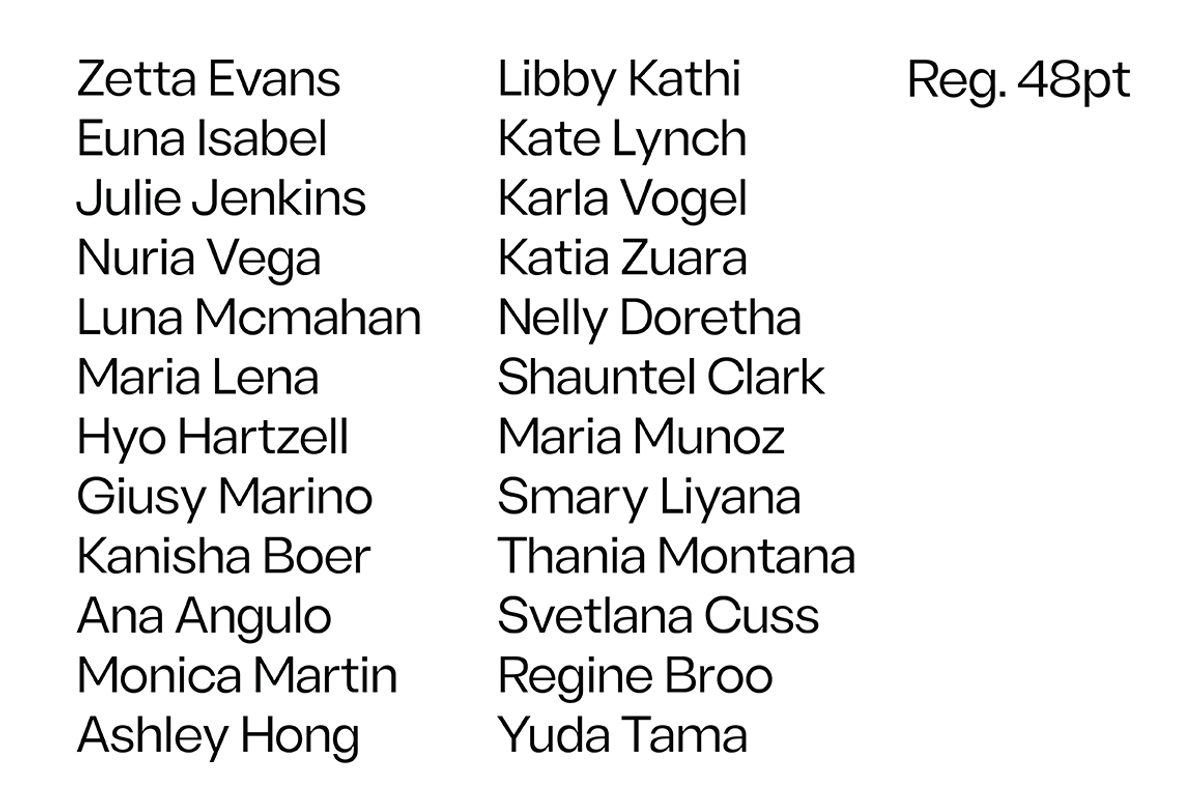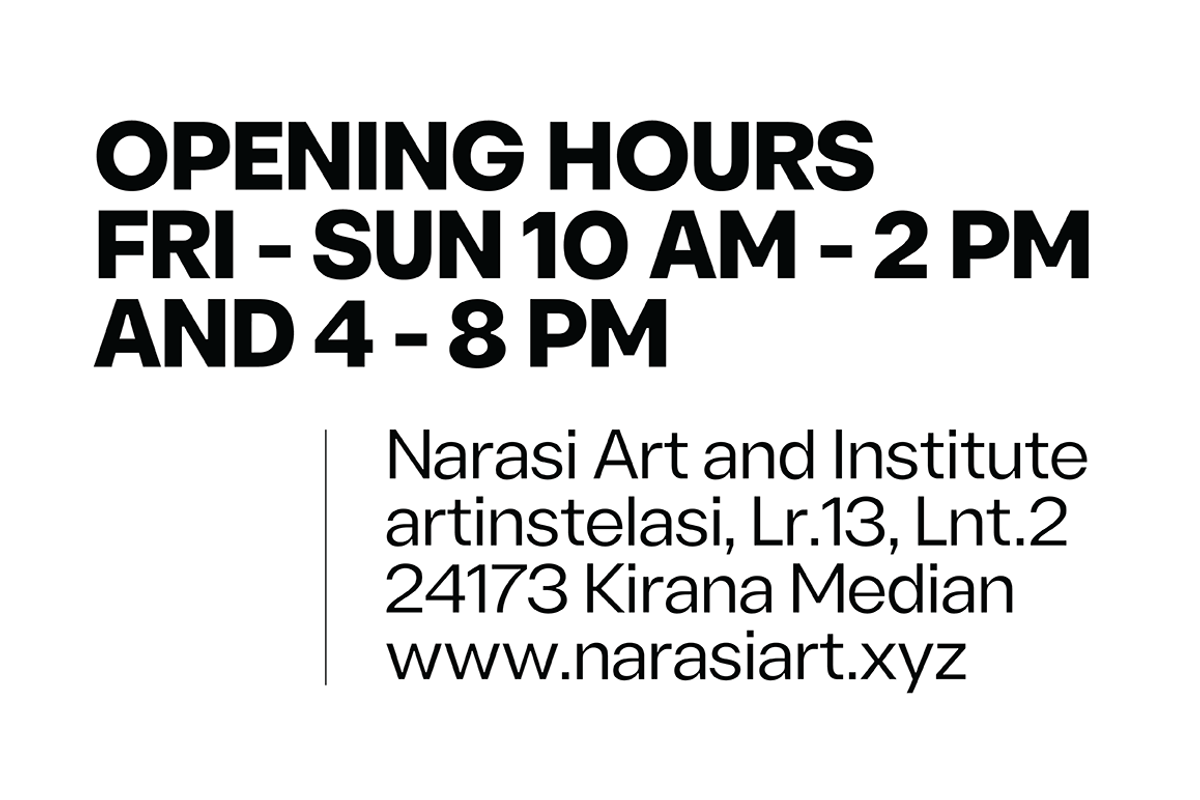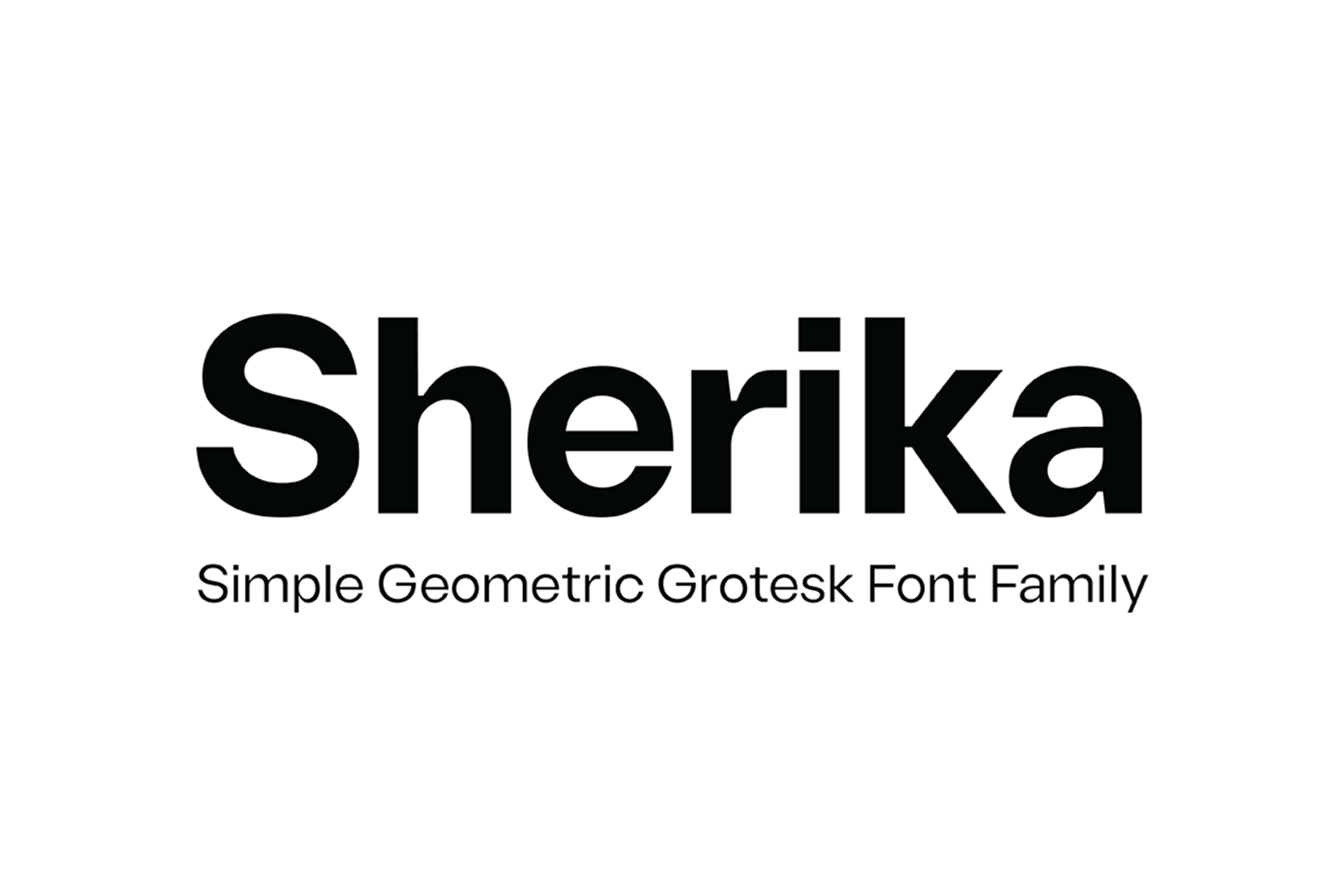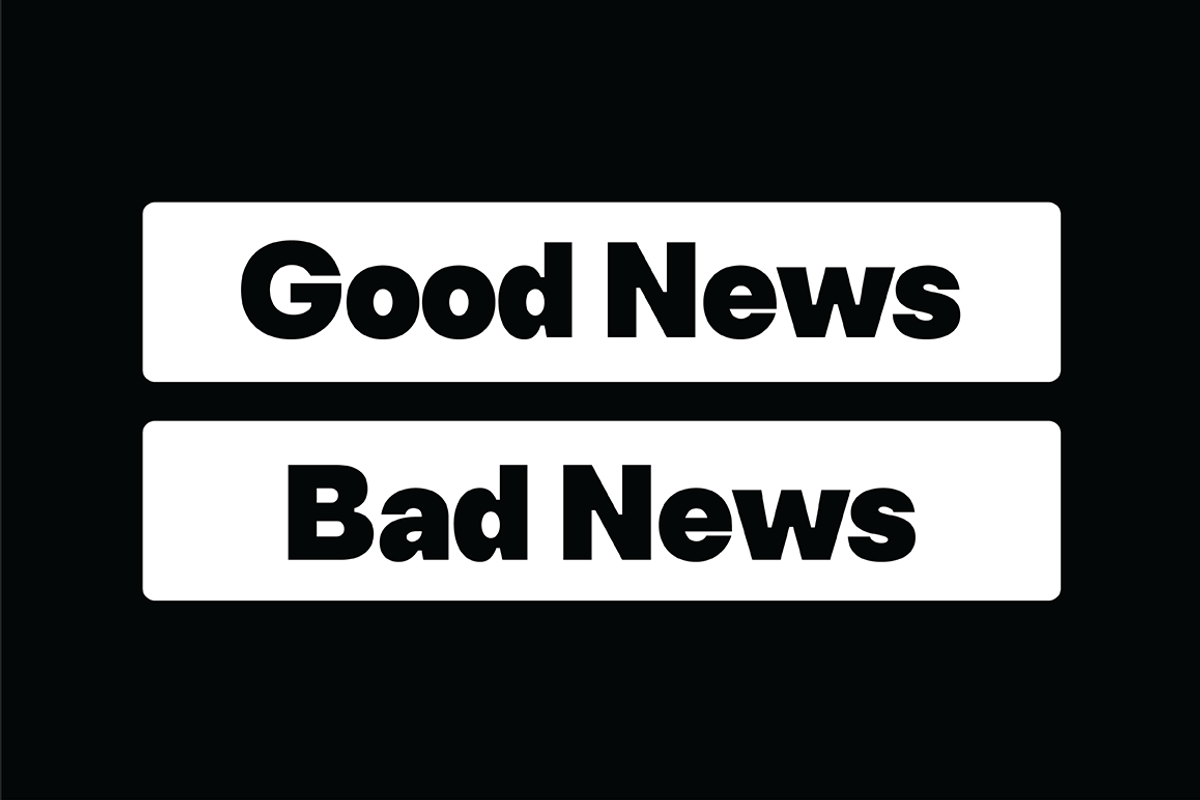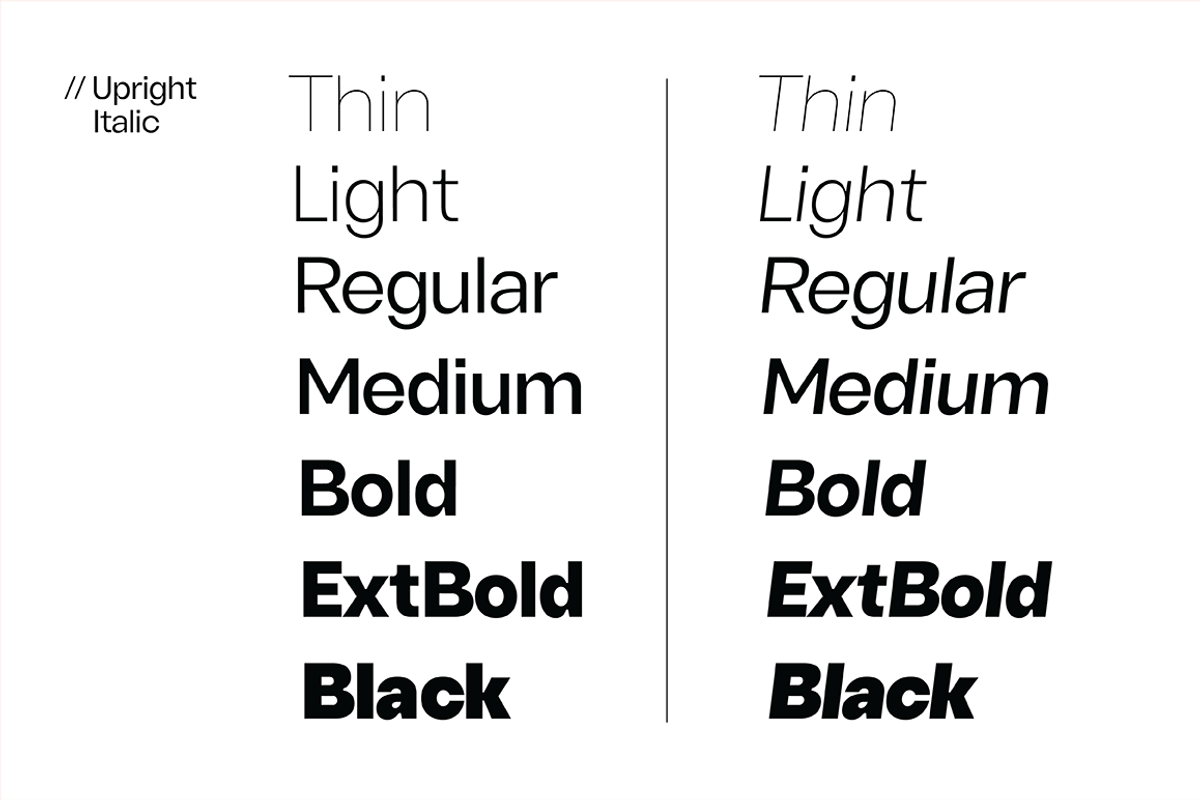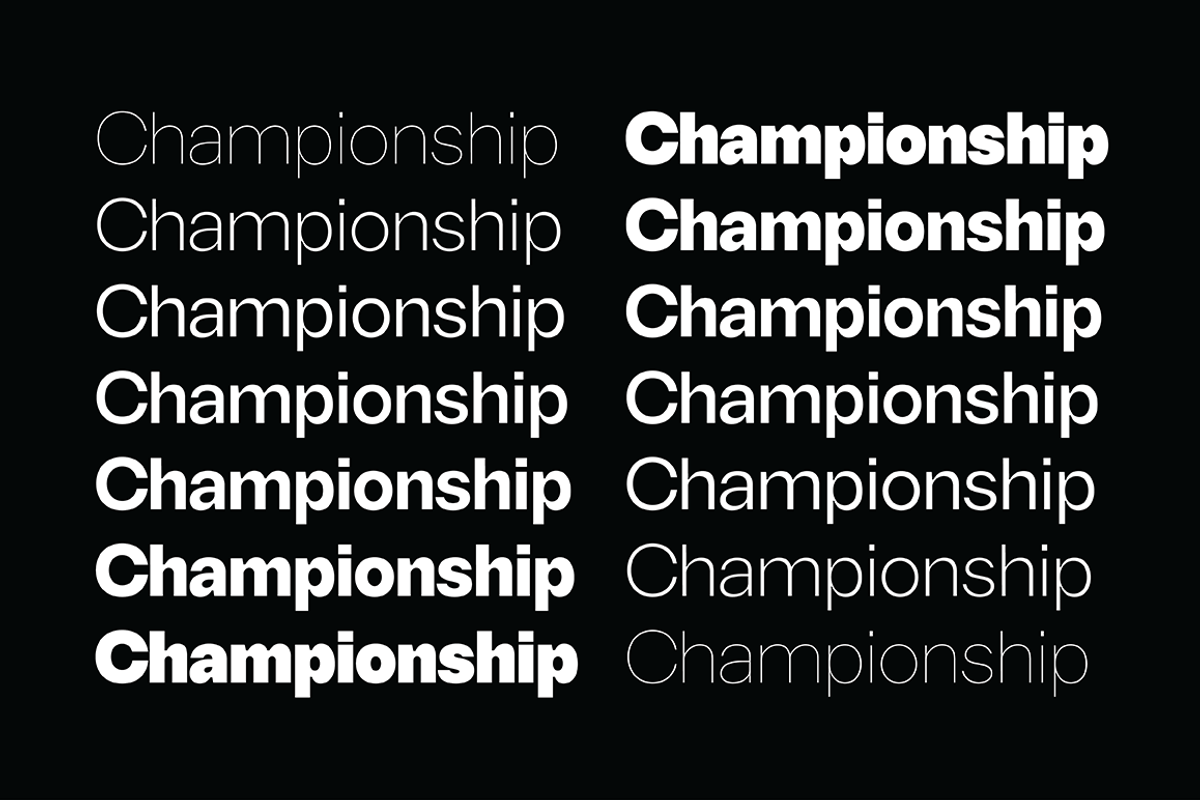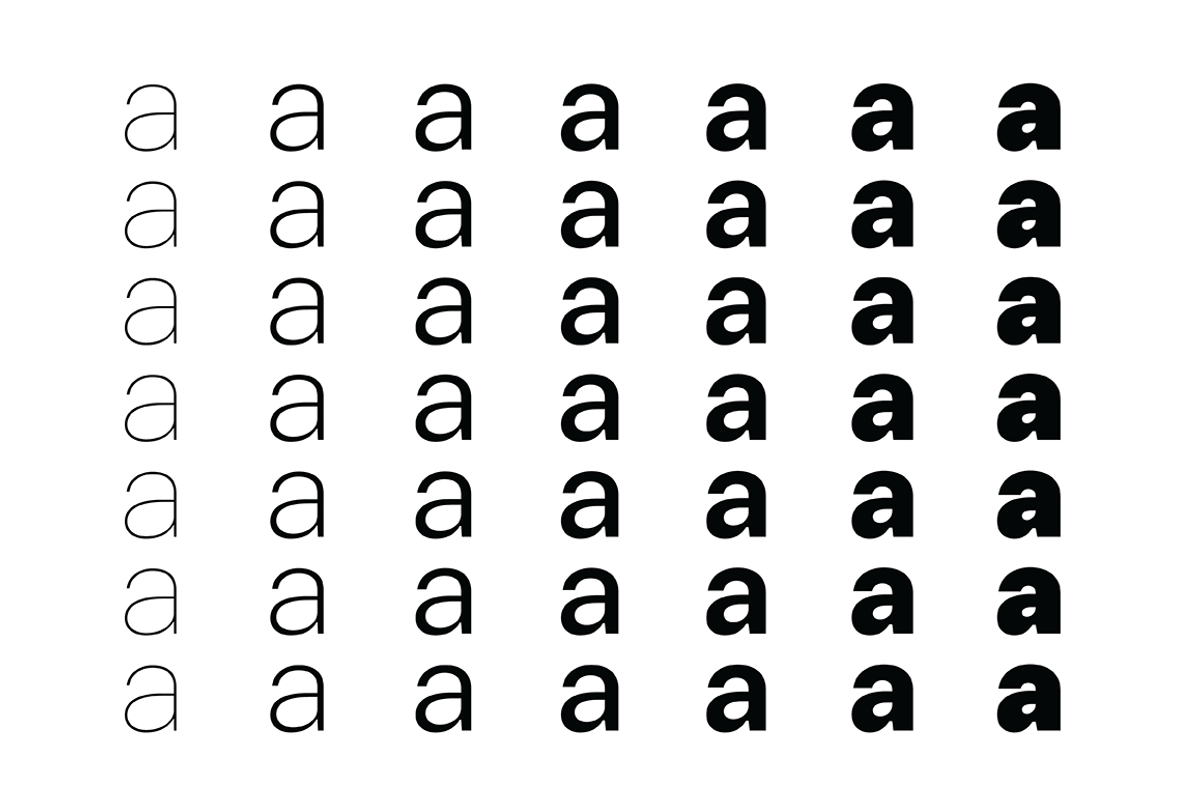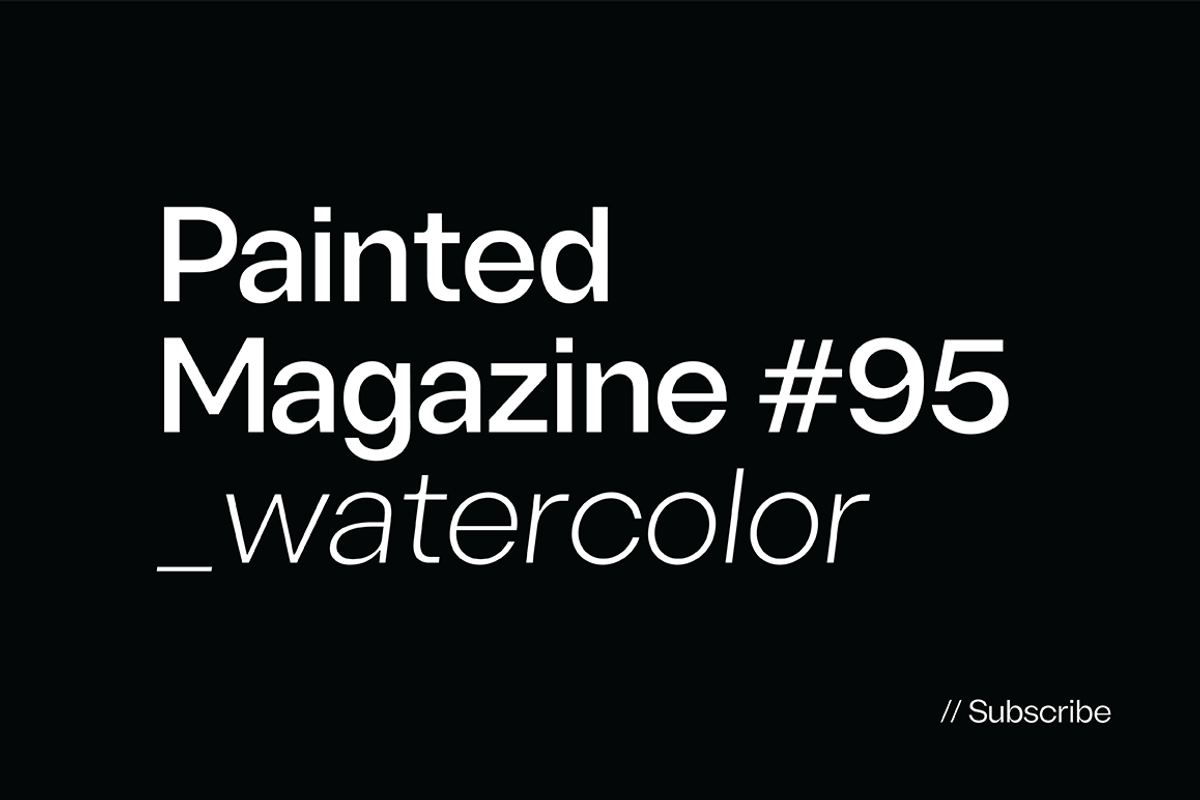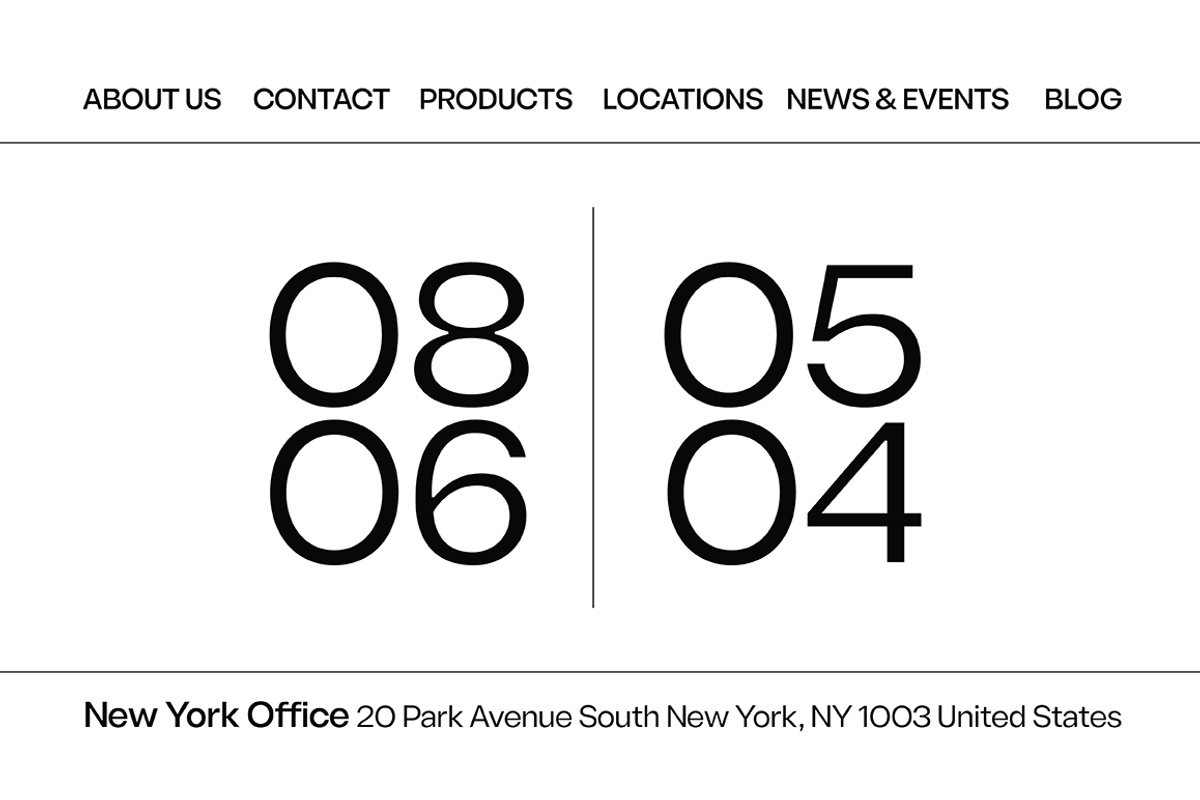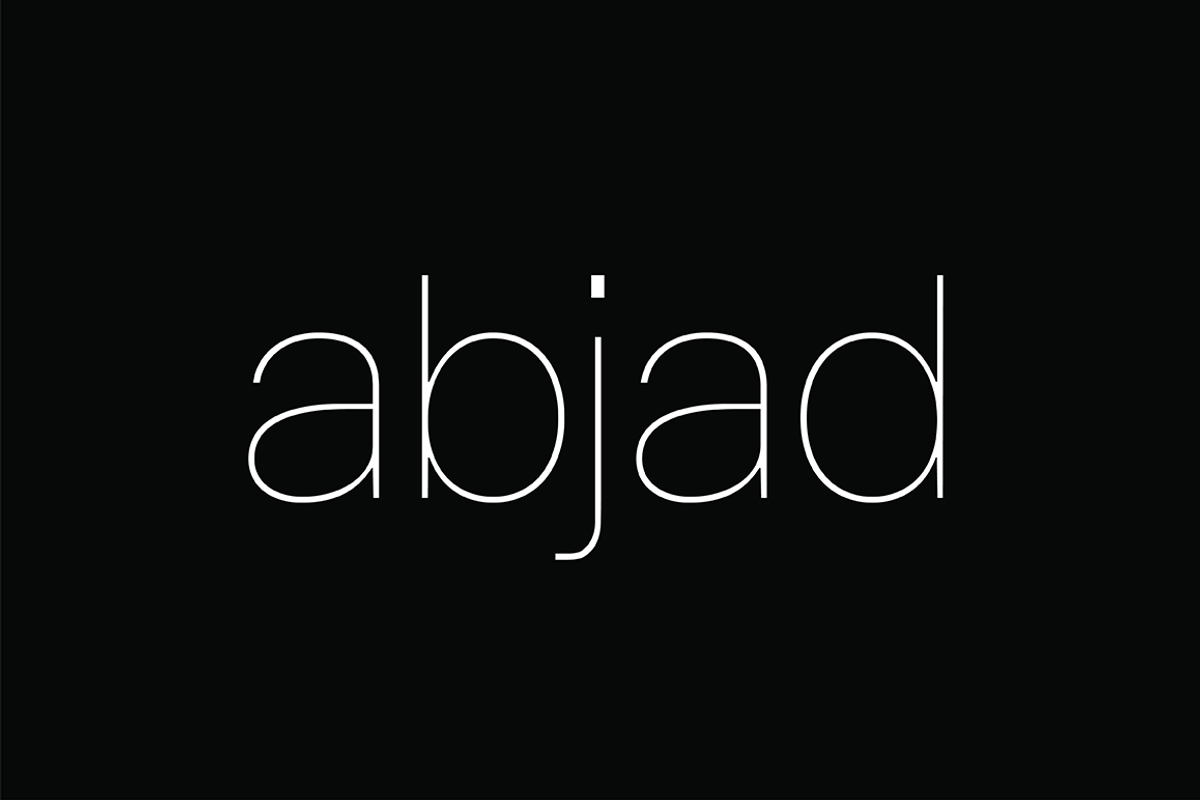
Sherika Font Family
Sherika is a cool and authentic sans serif font family. Seven weights plus matching italics. Simple geometry with nuance that adds warmth. t’s a perfect choice for branding, magazines, posters, advertising, packaging, headlines, logos, web, print etc.
- 14 styles: 7 uprights and matching italics.
- 232 glyphs.
- Latin based languages.
- OpenType features, including ligatures.
- Variable Font Includes.